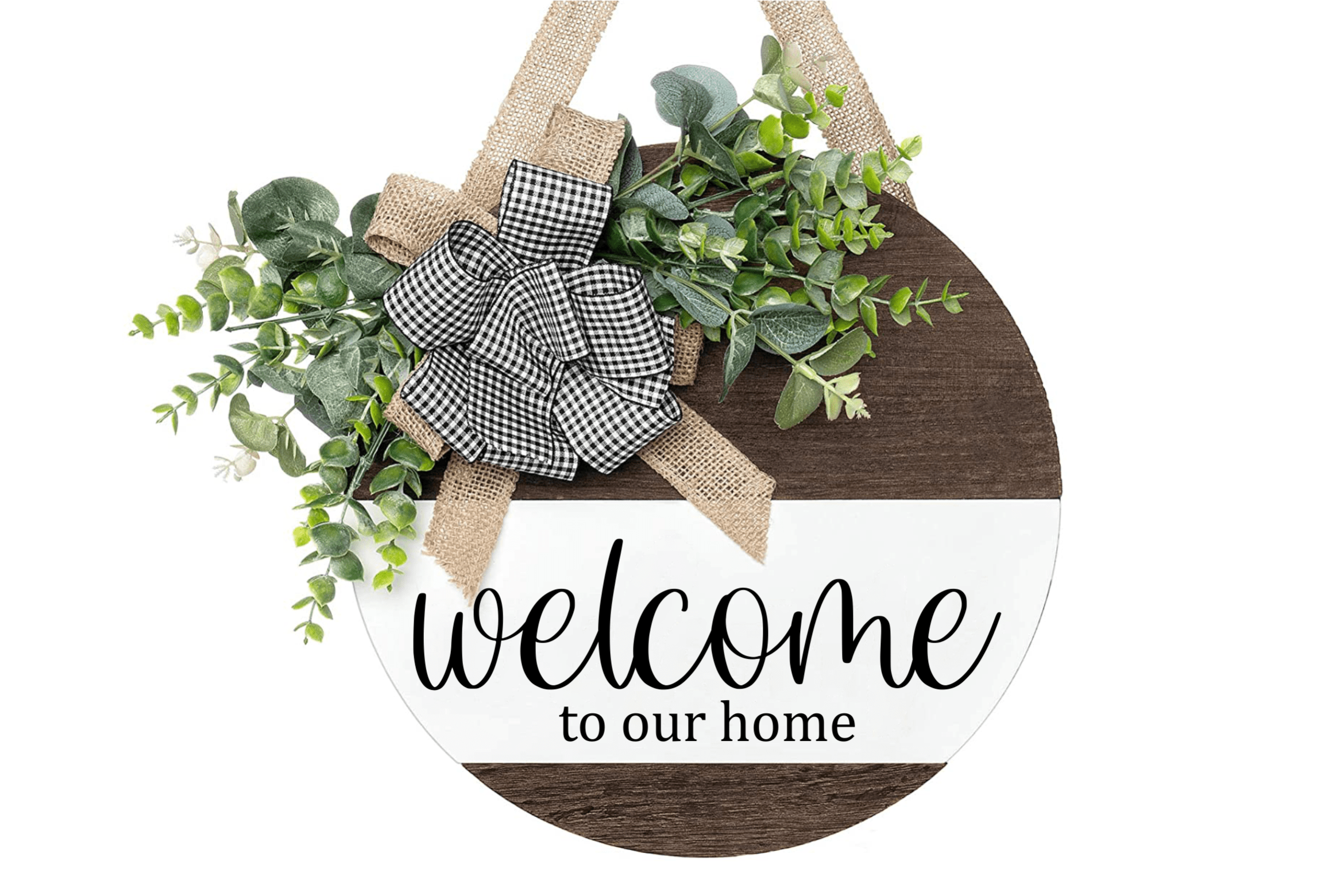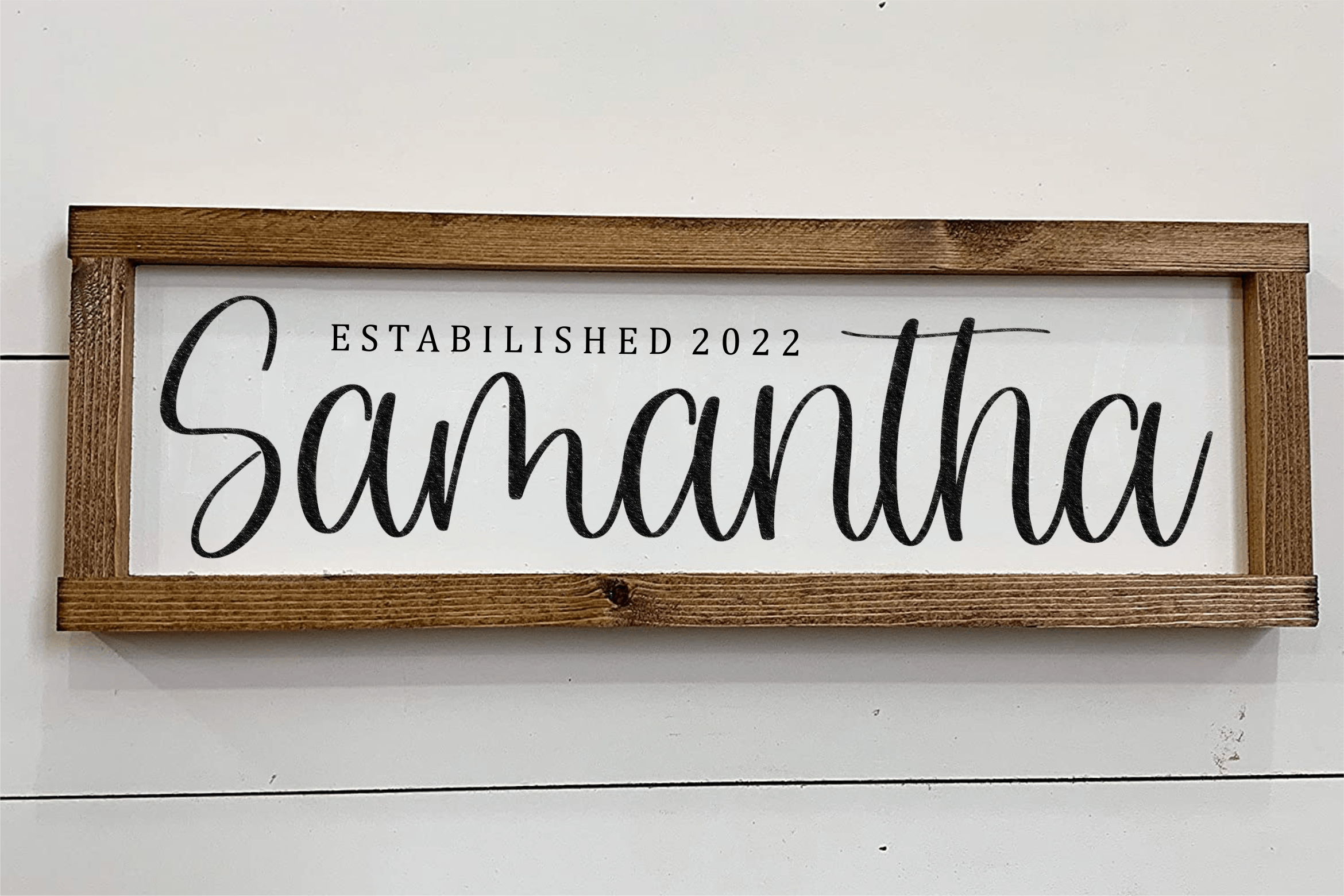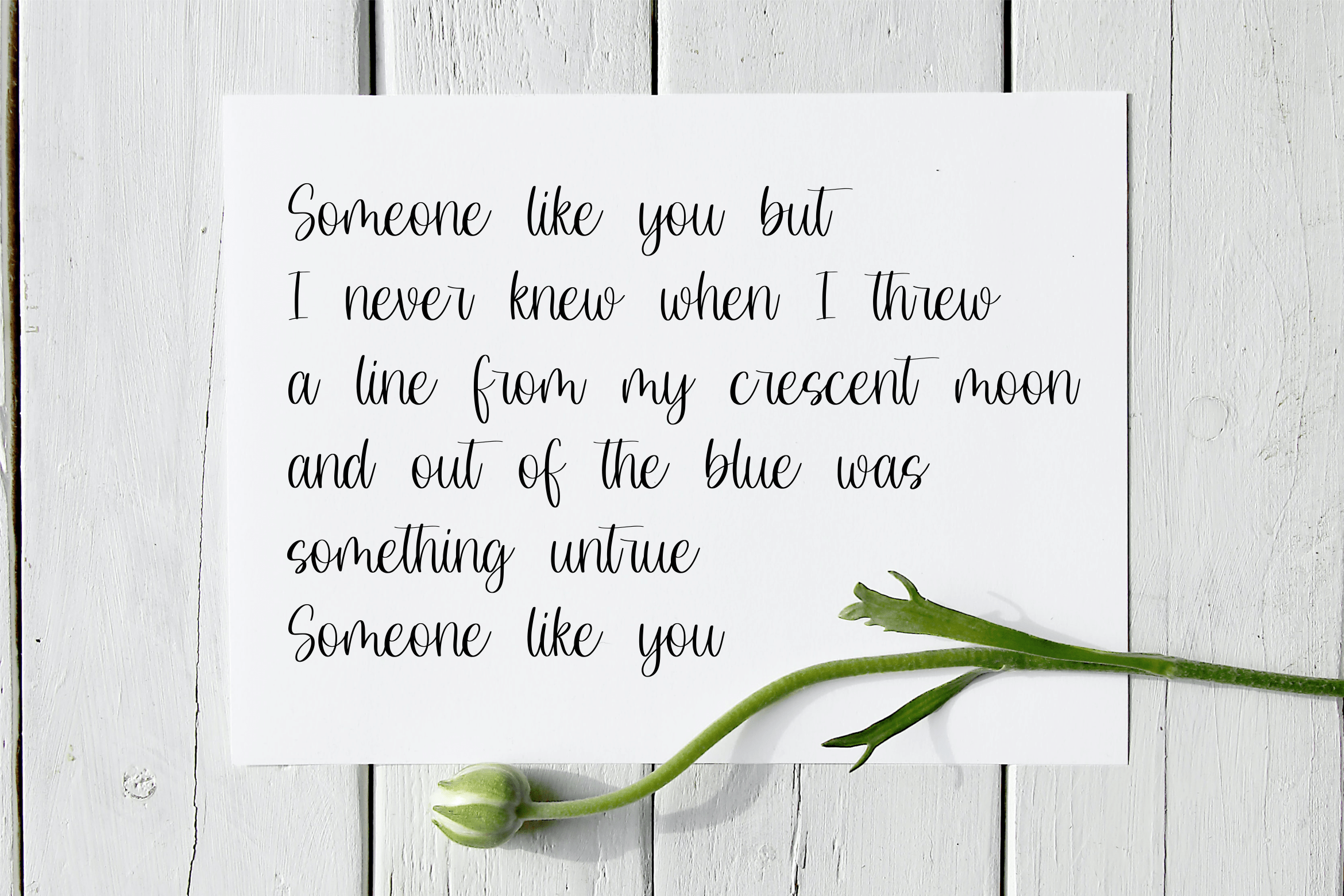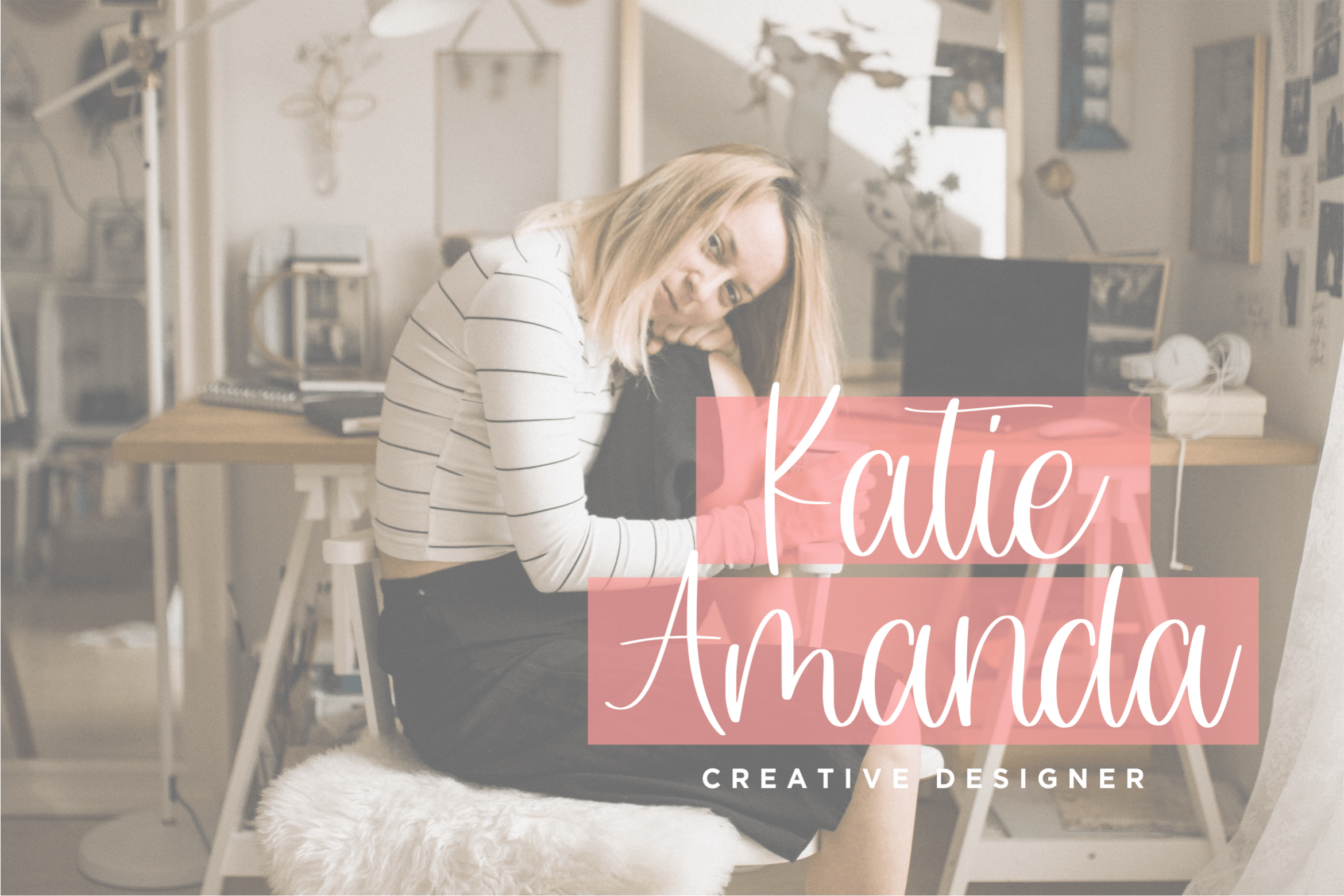
Shadefarms Font
Shadefarms Script Font
It’s a gorgeous and sweet handwritten font. Staylatte is perfect for product packaging, branding project, magazine covers, social media, wedding, or just used to express words above the background.